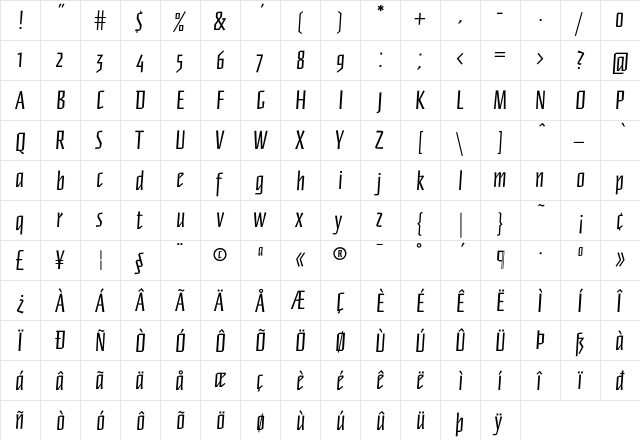
Newberlin Regular
Design Context for Newberlin Typeface
Newberlin offers clean, dependable letterforms without strong stylistic allegiance, making it a practical choice for designers who need flexibility.
Pro Tip: Use Newberlin in both headline and body roles to test its range before committing to a single application.